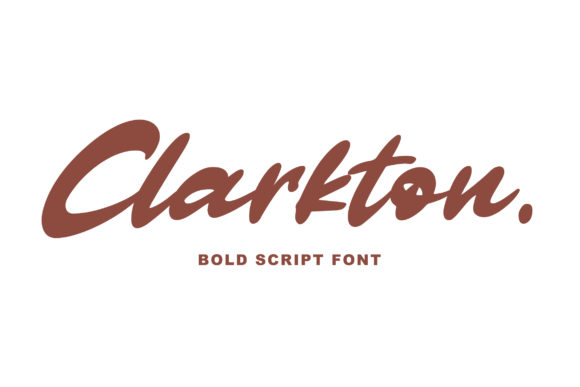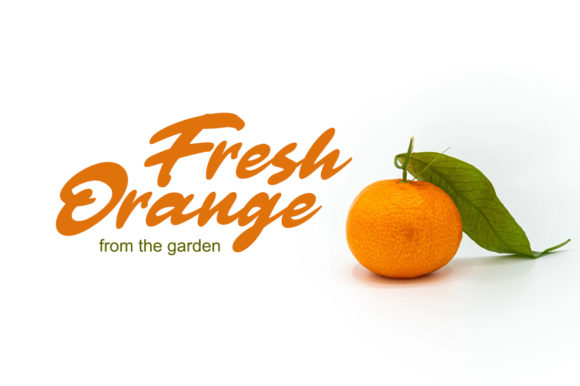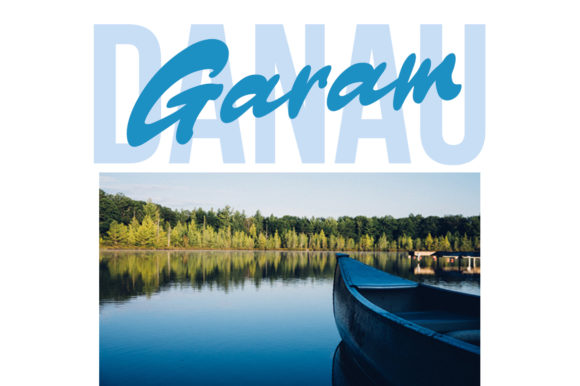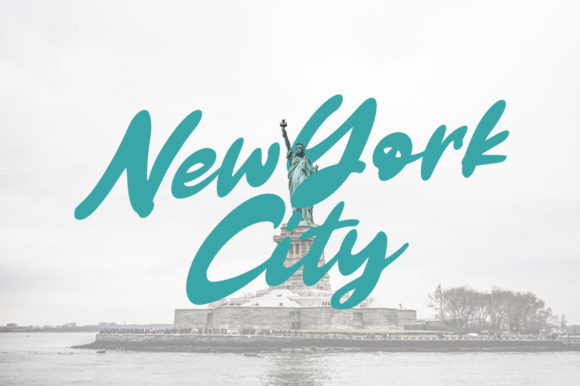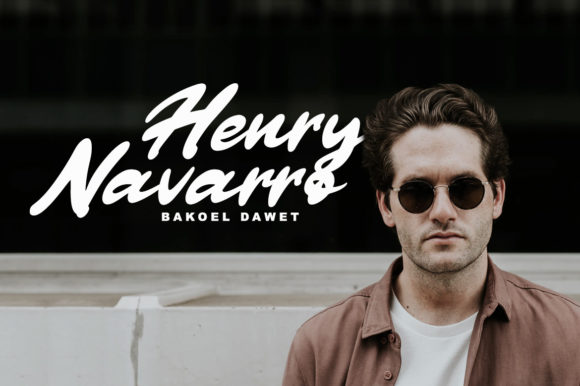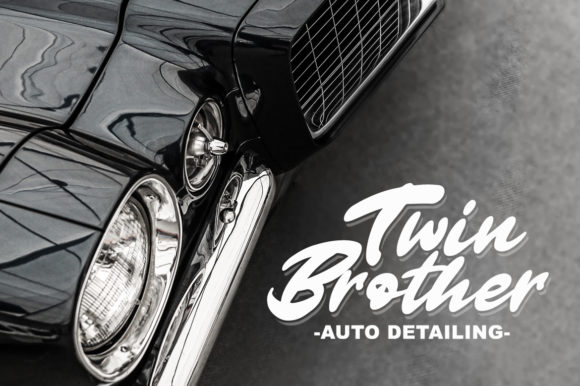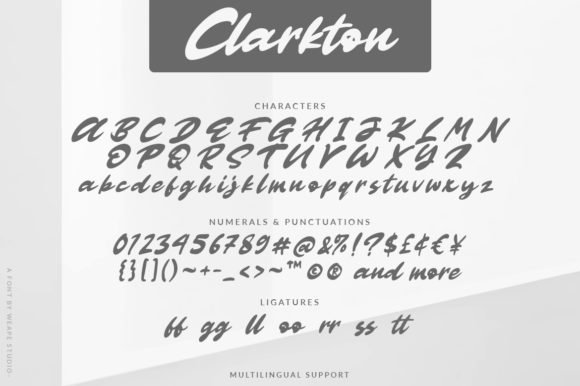
Clarkton Font
About Clarkton Font
Clarkton is a cute and casual handwritten font with an incredibly friendly feel. It features gorgeous swashes and ligatures that make this script incredibly versatile. Whether you’re looking for fonts for Instagram or calligraphy scripts for DIY projects, Clarkton will turn any creative idea into a true piece of art!